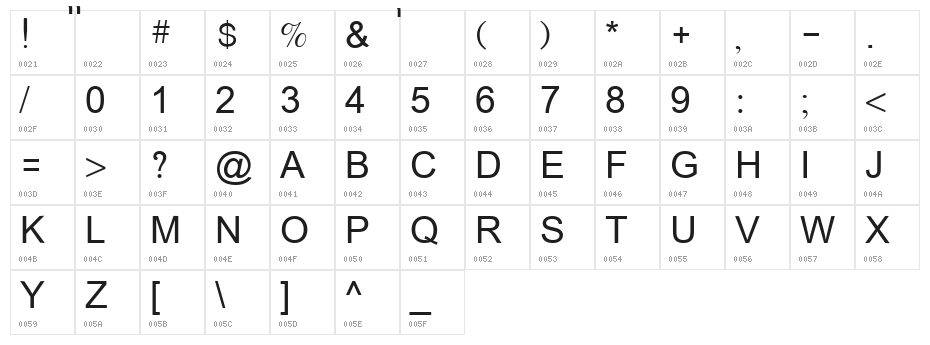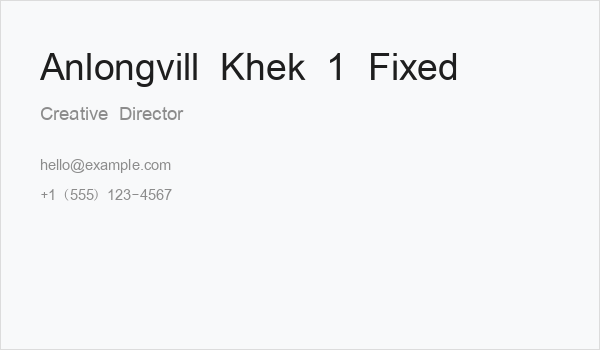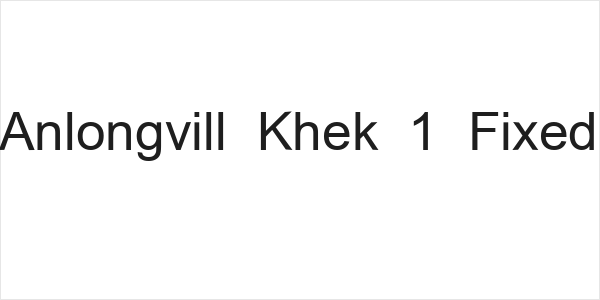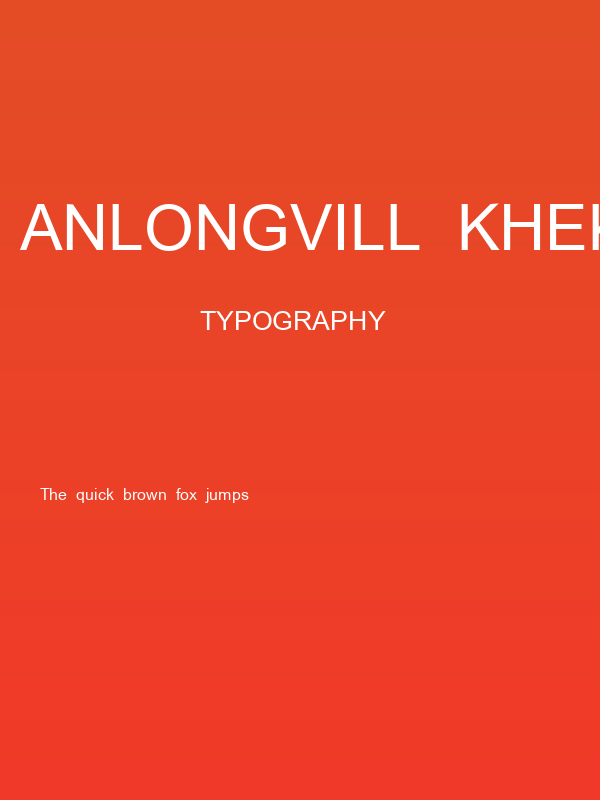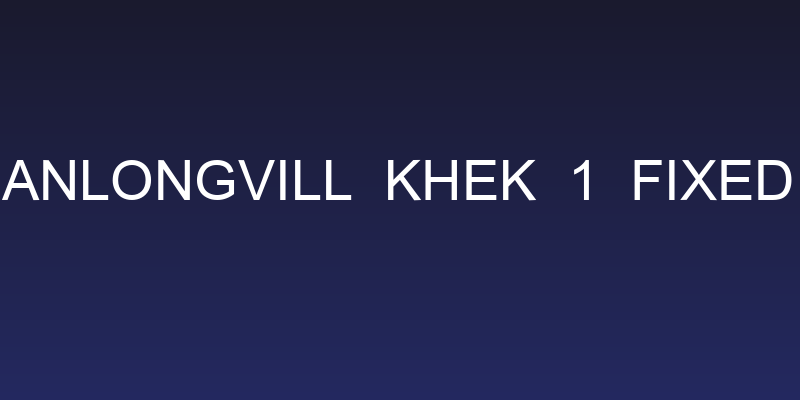
Anlongvill Khek 1 Fixed Font
Anlongvill Khek 1 Fixed Description
This font features a clean and minimalist design, characterized by its simple and straightforward letterforms. The characters are evenly spaced, providing a balanced and harmonious appearance. The strokes are uniform in thickness, contributing to a modern and sleek aesthetic. The uppercase and lowercase letters are well-proportioned, ensuring readability and clarity. The numerals and special characters maintain the same clean style, making this font versatile for various applications. Its simplicity and elegance make it suitable for both digital and print media.